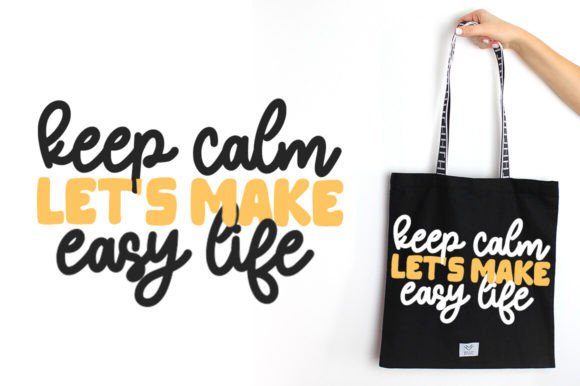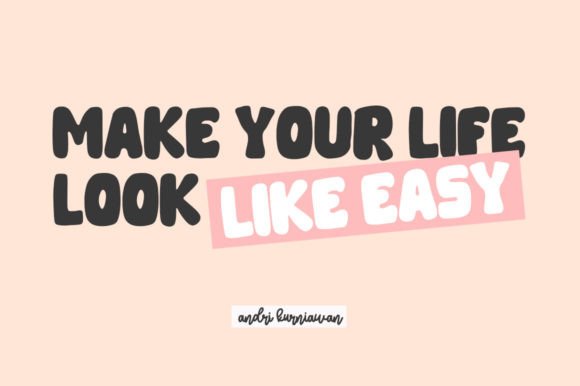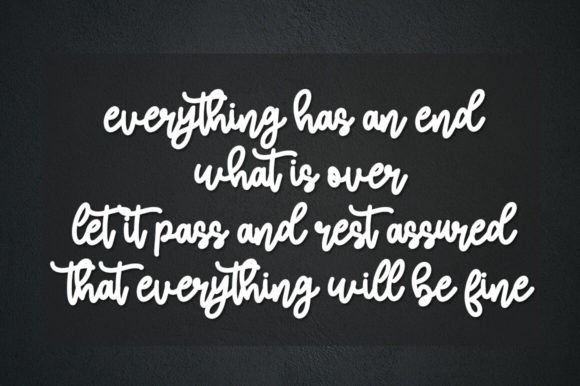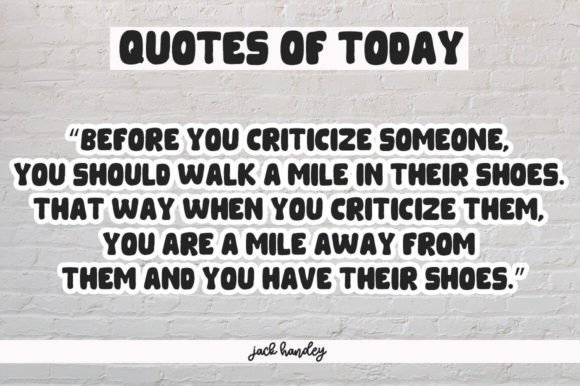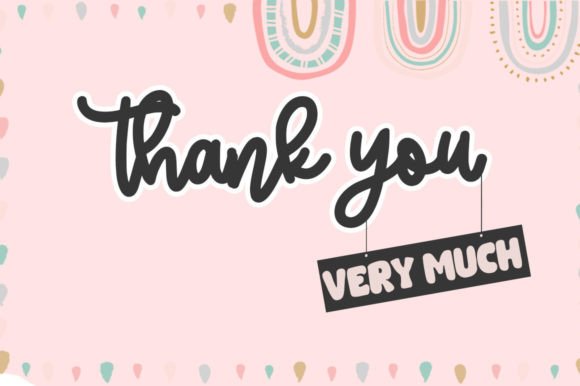
Smile Child Very Good Font
Smile Child Very Good – is a Duo Handwritten and petite (handwritten and modern look) Font Duo, featuring a sweet and gentle look. This original look will appeal to a variety of crafty ideas, from letterhead and titles to writing implements.